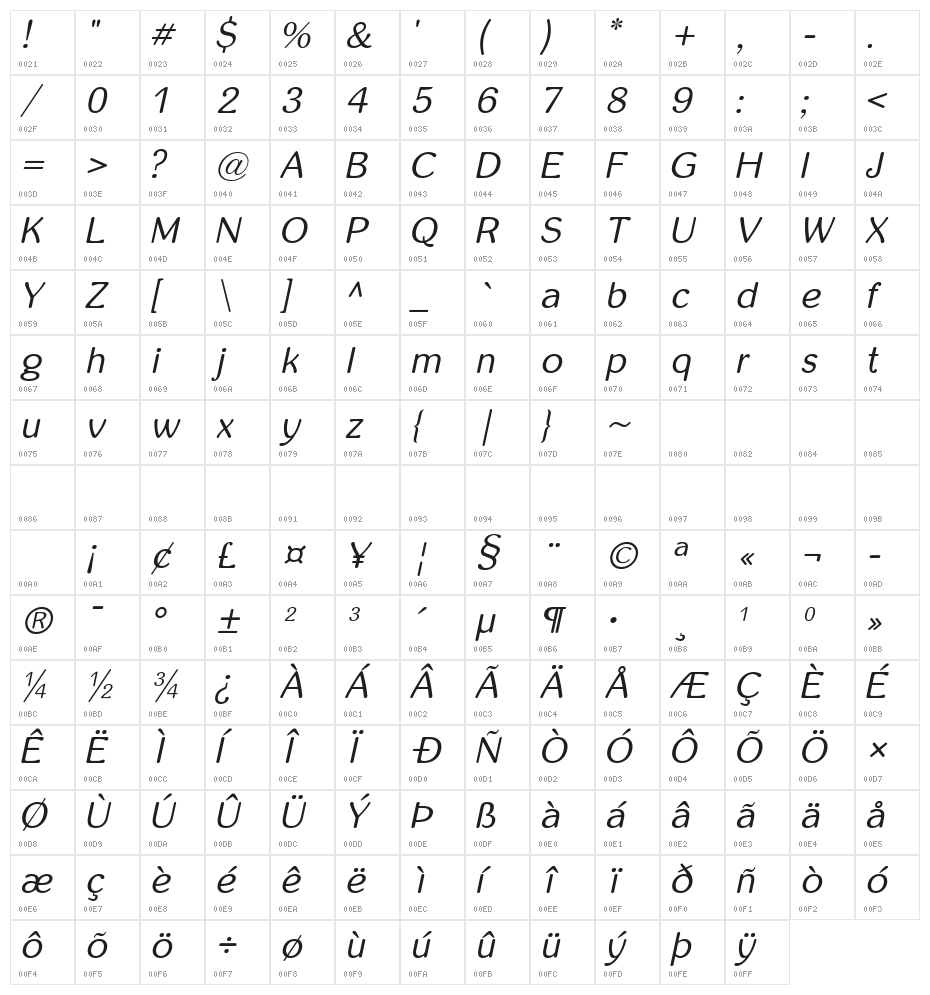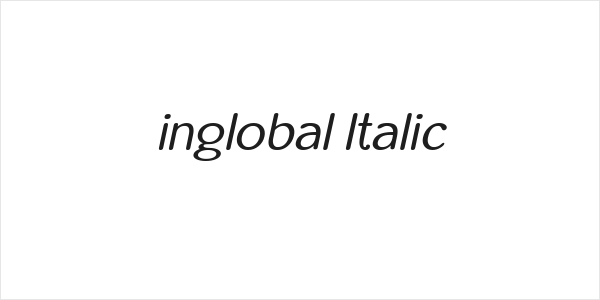
inglobal Italic Font
inglobal Italic Description
This font exhibits a sleek and modern design with a subtle italic slant, giving it a dynamic and fluid appearance. The characters are well-proportioned, with smooth curves and clean lines that enhance readability. The uppercase letters maintain a consistent height, while the lowercase letters have a slightly rounded form, adding a touch of softness. The numerals are clear and distinct, making them easily distinguishable. Special characters are well-integrated, maintaining the overall aesthetic of the font. The spacing between characters is balanced, ensuring clarity and legibility across various applications.
| Proposed Projects | Ideal for branding, advertising, and digital content where a modern and dynamic look is desired. |